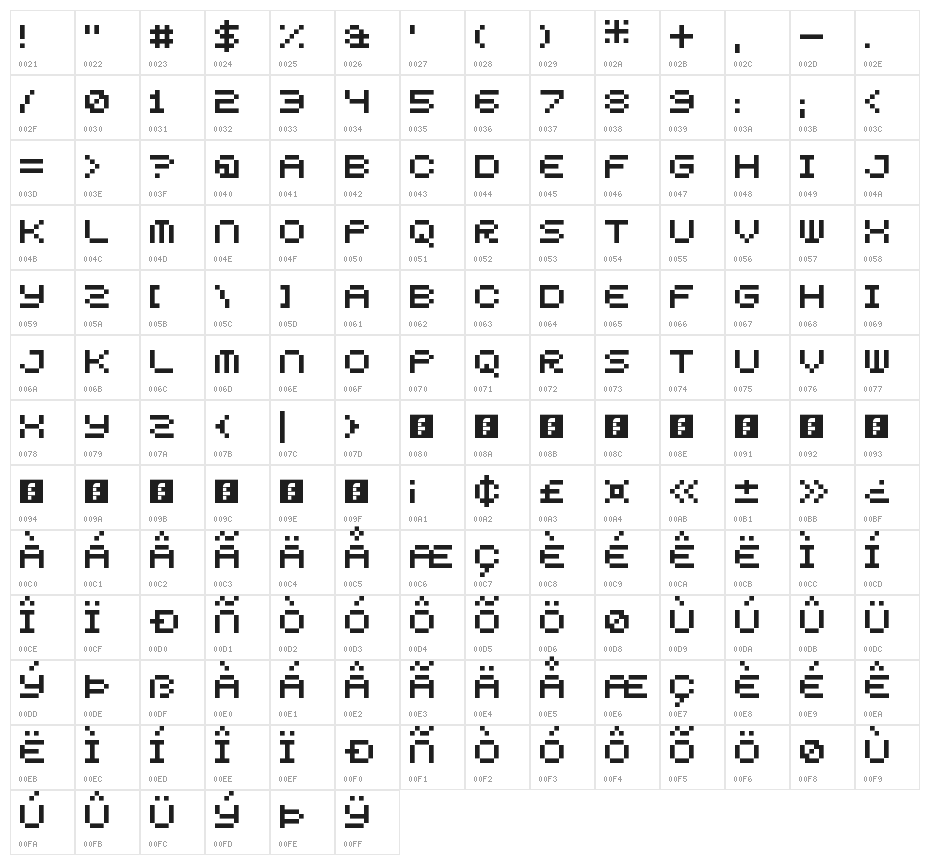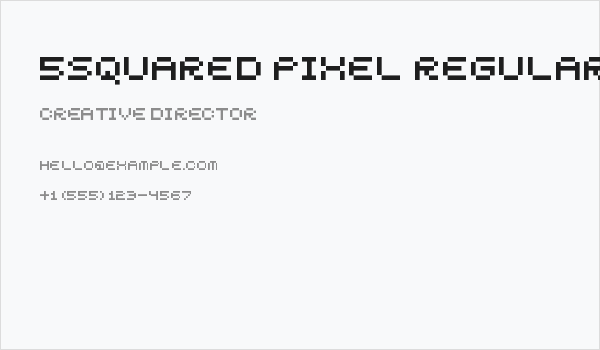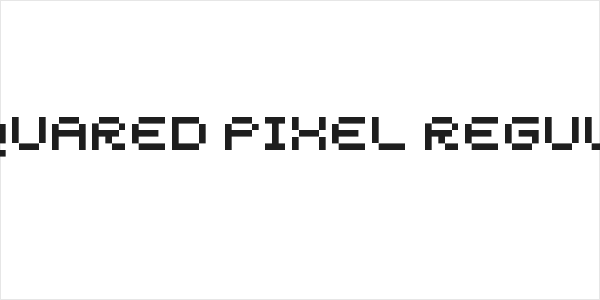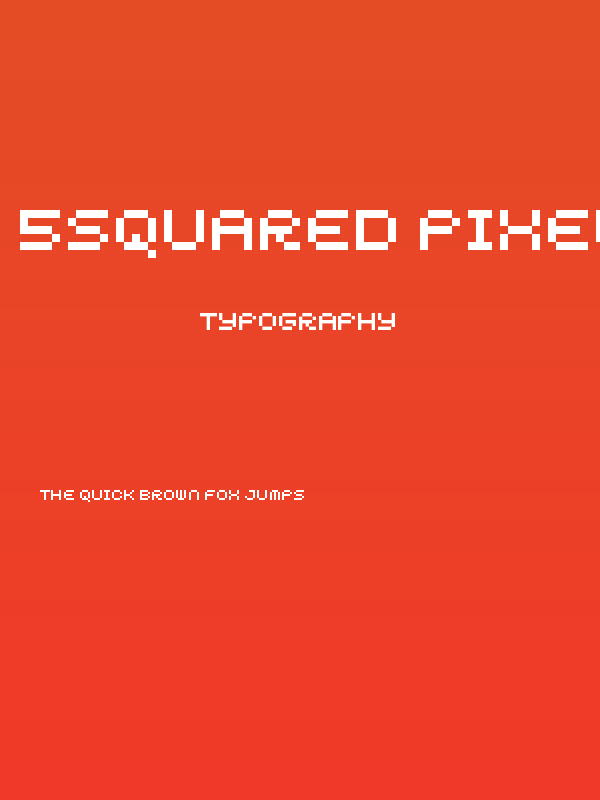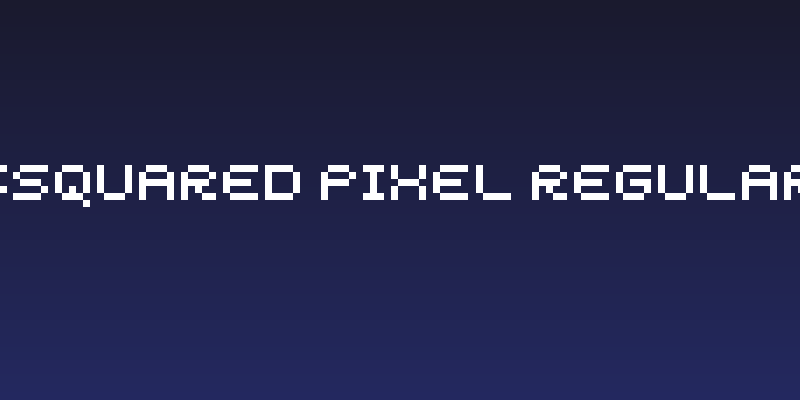
5squared pixel Regular Font
5squared pixel Regular Description
This font features a pixelated, blocky design reminiscent of early digital displays and video games. Each character is constructed from a grid of square pixels, giving it a distinctly retro and digital aesthetic. The uniformity in the height and width of the characters creates a cohesive and structured appearance. The uppercase and lowercase letters maintain a consistent style, with minimal differentiation between the two, emphasizing the geometric nature of the design. Numbers and special characters are crafted with the same pixelated approach, ensuring a seamless integration across all glyphs. The font's simplicity and clarity make it highly legible, even at smaller sizes, while its nostalgic charm adds a playful touch to any project.
| Overall Style | Retro, Digital |
| Use Case | Logos, Headlines, Posters |
| Proposed Projects | Ideal for retro video game designs, digital-themed posters, pixel art projects, and tech-related branding. |